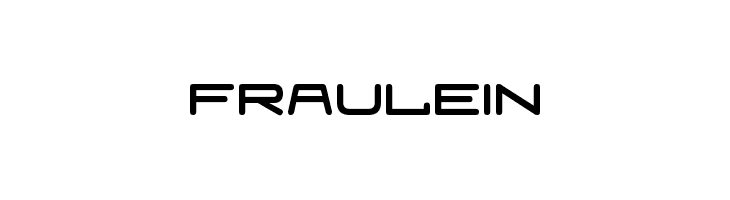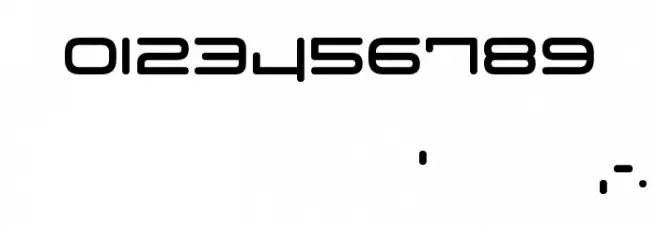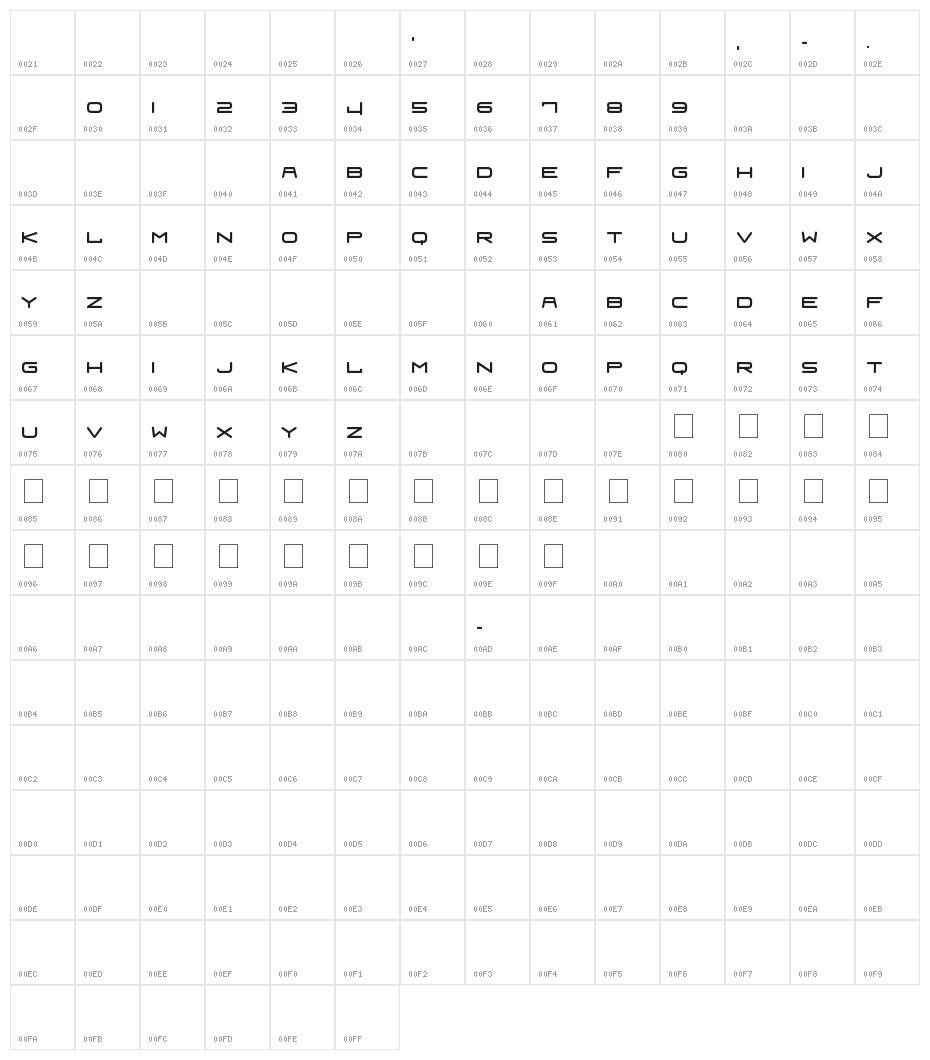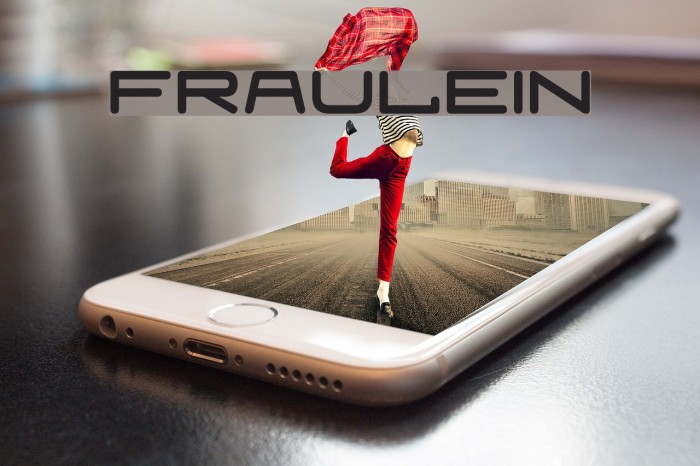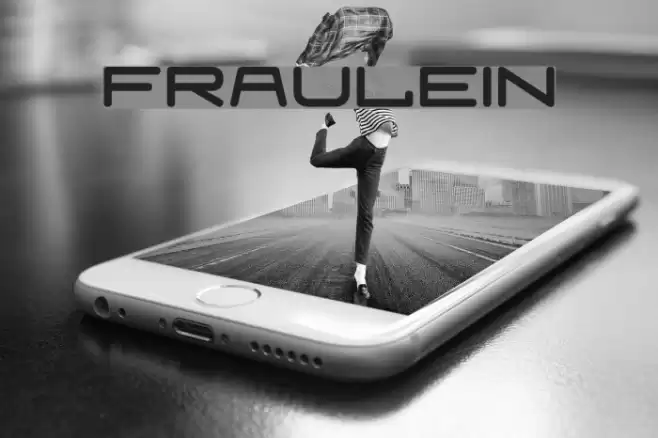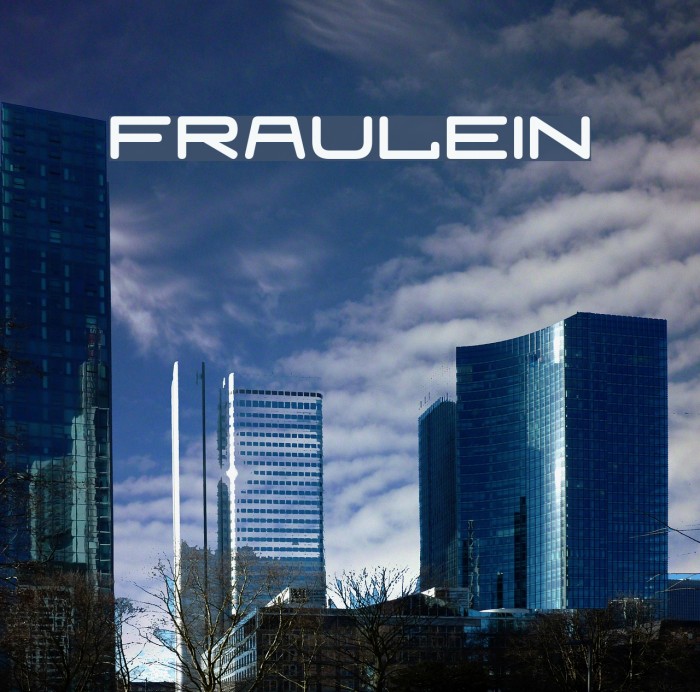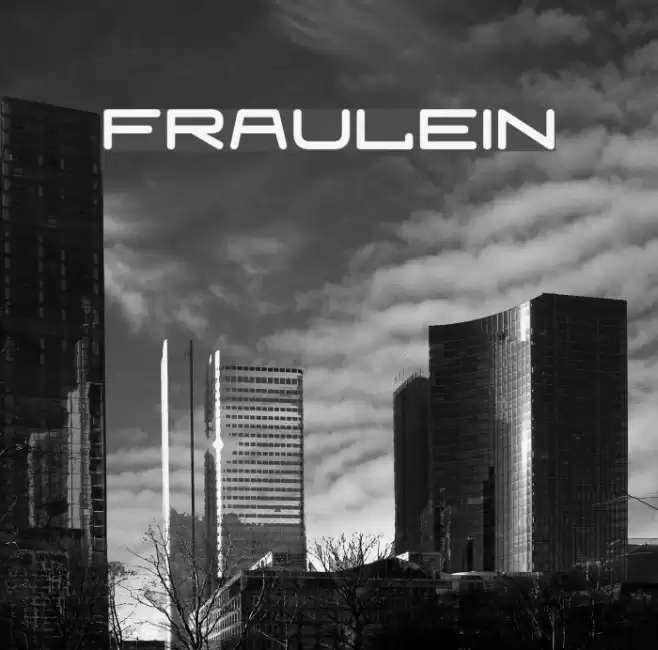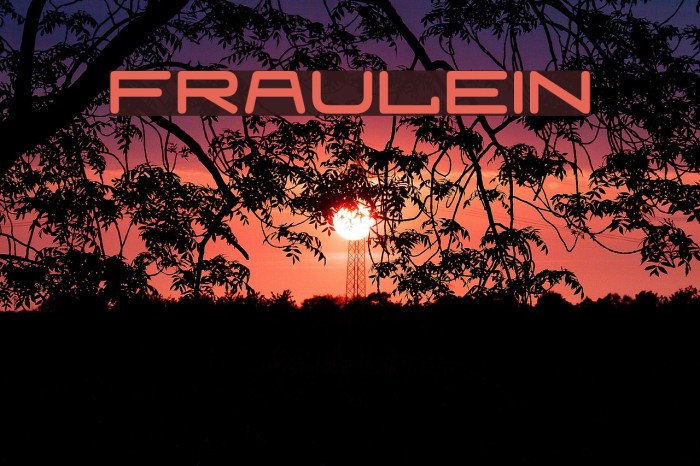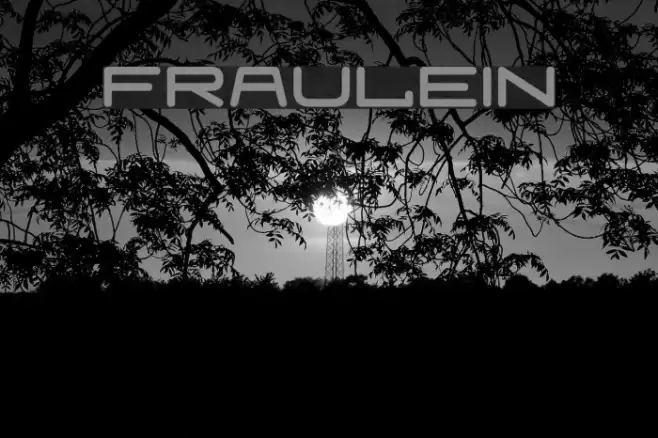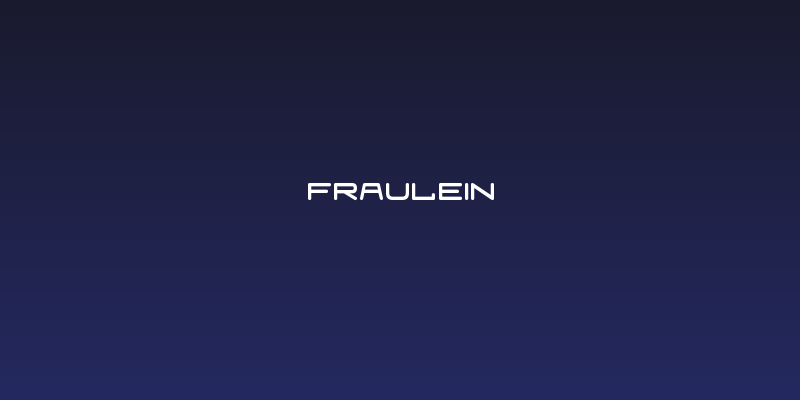
Fraulein Font
Fraulein Description
This font features a modern, geometric design with rounded edges and a clean, streamlined appearance. The characters are uniformly structured, offering a futuristic and minimalist aesthetic. The uppercase and lowercase letters maintain consistent proportions, enhancing readability. The numerals and special characters are designed to complement the overall style, making it suitable for digital and print media. The font's uniformity and simplicity make it versatile for various design applications.
| Proposed Projects | Ideal for tech branding, digital interfaces, modern posters, and futuristic design projects. |